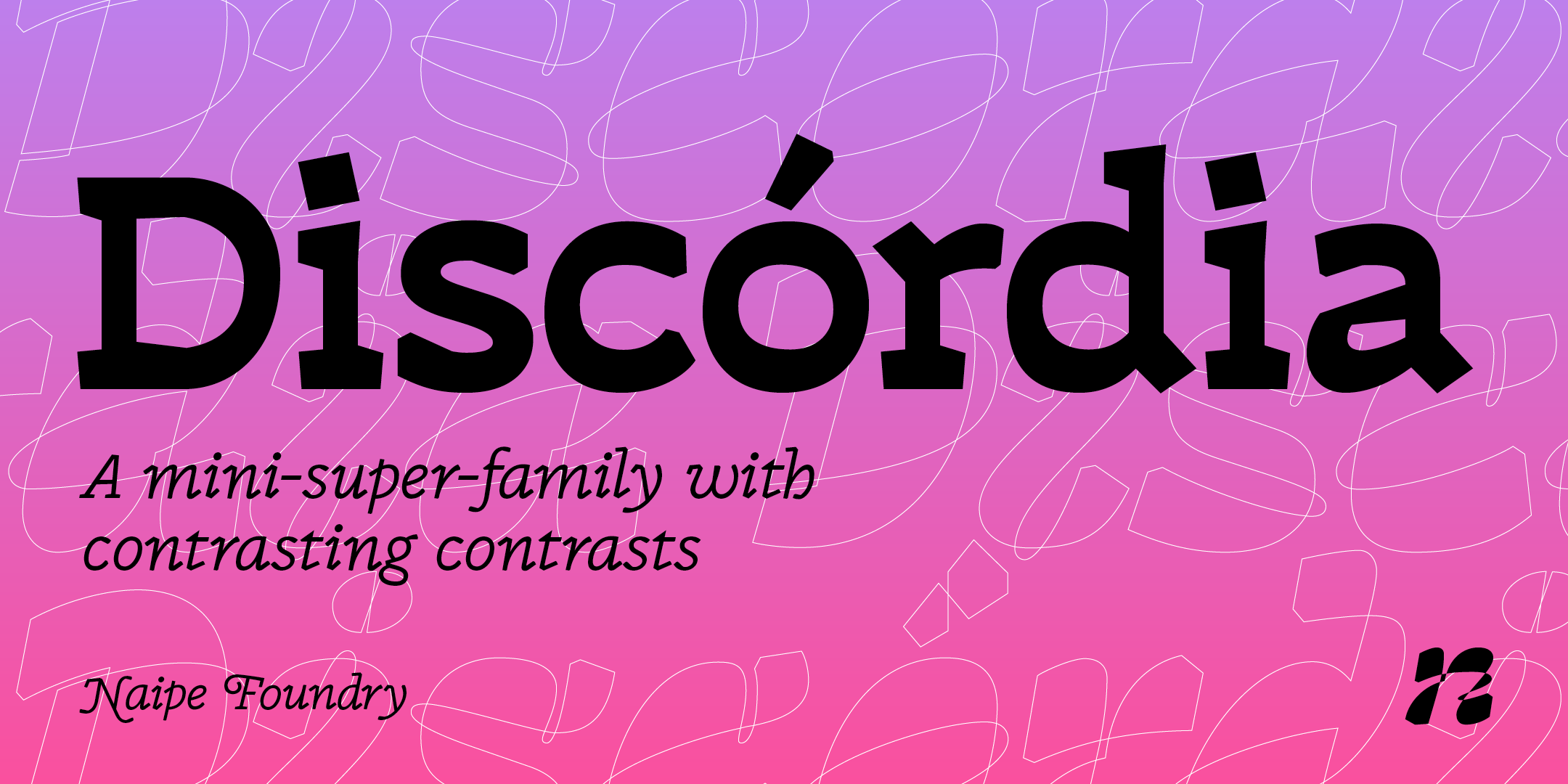
Designed by Álvaro Franca, Felipe Casaprima and Ben Nathan, Discórdia is a display, display serif and display slab font family. This typeface has four styles and was published by Naipe.
Discórdia
Discórdia is a type-family of contrasting contrasts. Each of the four members of the family has a different contrast type. Regular has broad-nib contrast, Bold has horizontal contrast, the Italic is monoline, which means it has no apparent contrast, and Bold Italic is… Well, it’s probably best if see for yourself.
These different design structures were fine-tuned to work well together in the same line, creating emphasis and hierarchy through a mini-super-family that groups a wedge-serif Regular, a slab-serif Bold, a sans-serif-ish Italic and a twisted Bold Italic.
Naipe teamed up with Ben Nathan of Hafontia to extend Discórdia and give full Hebrew Support.